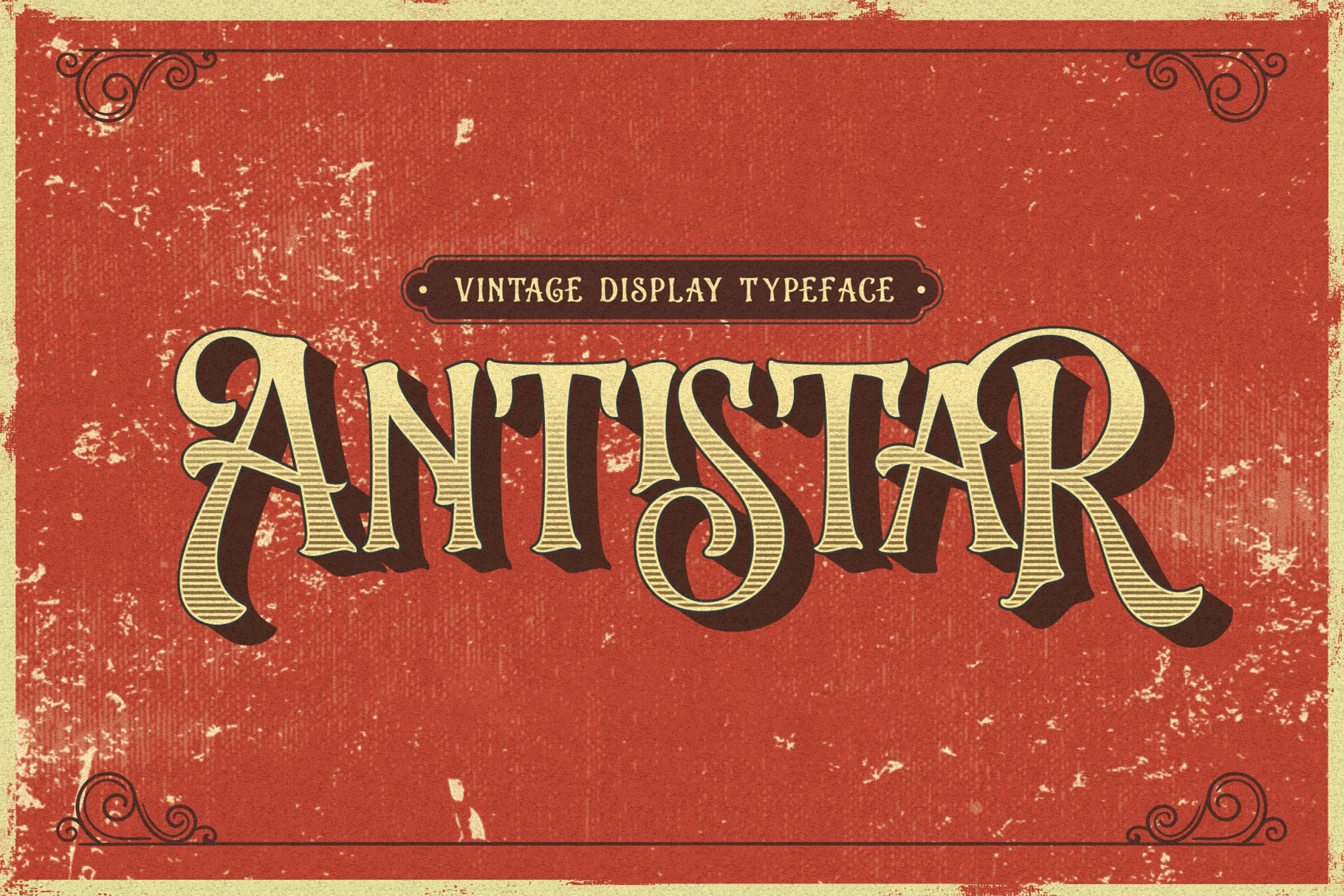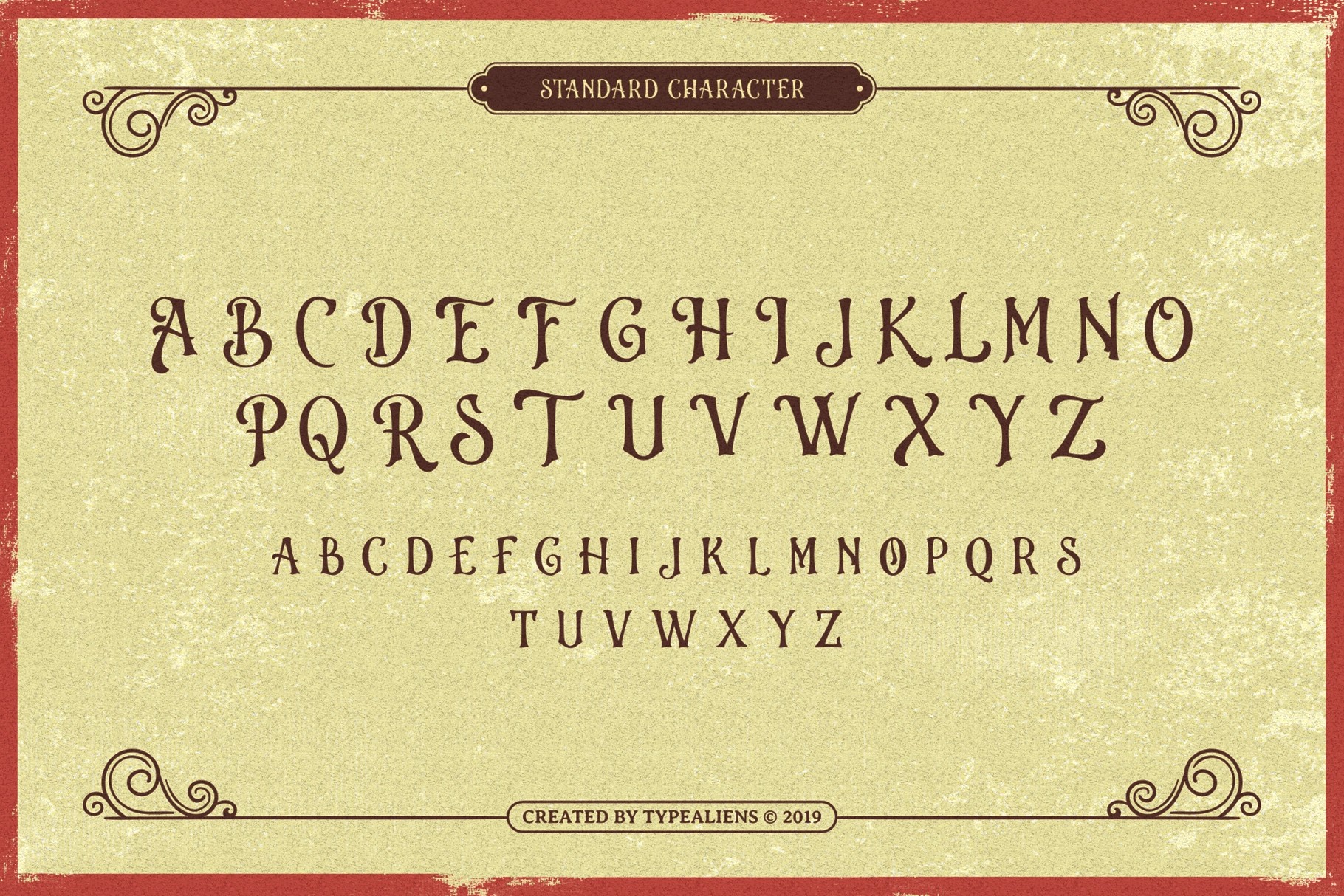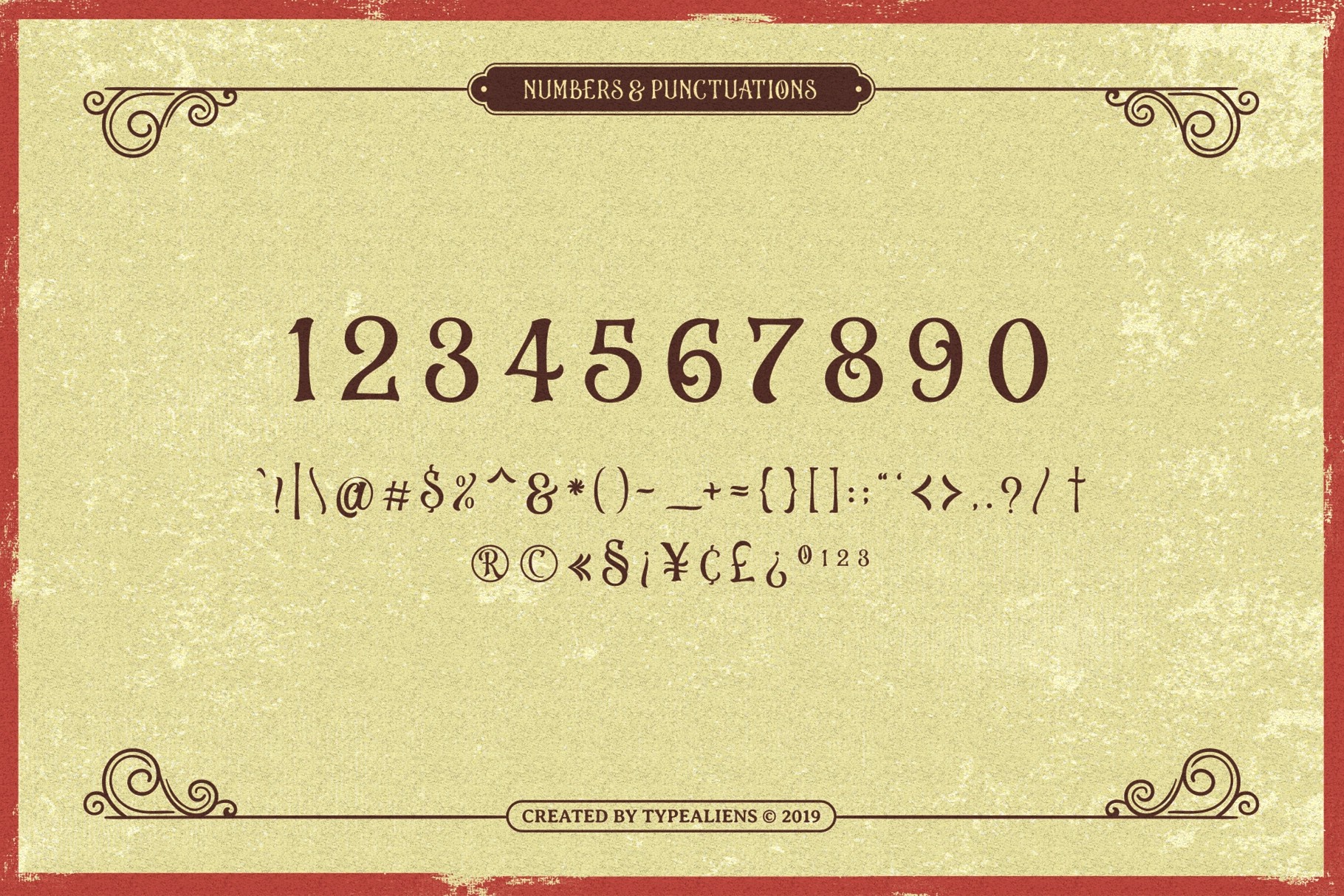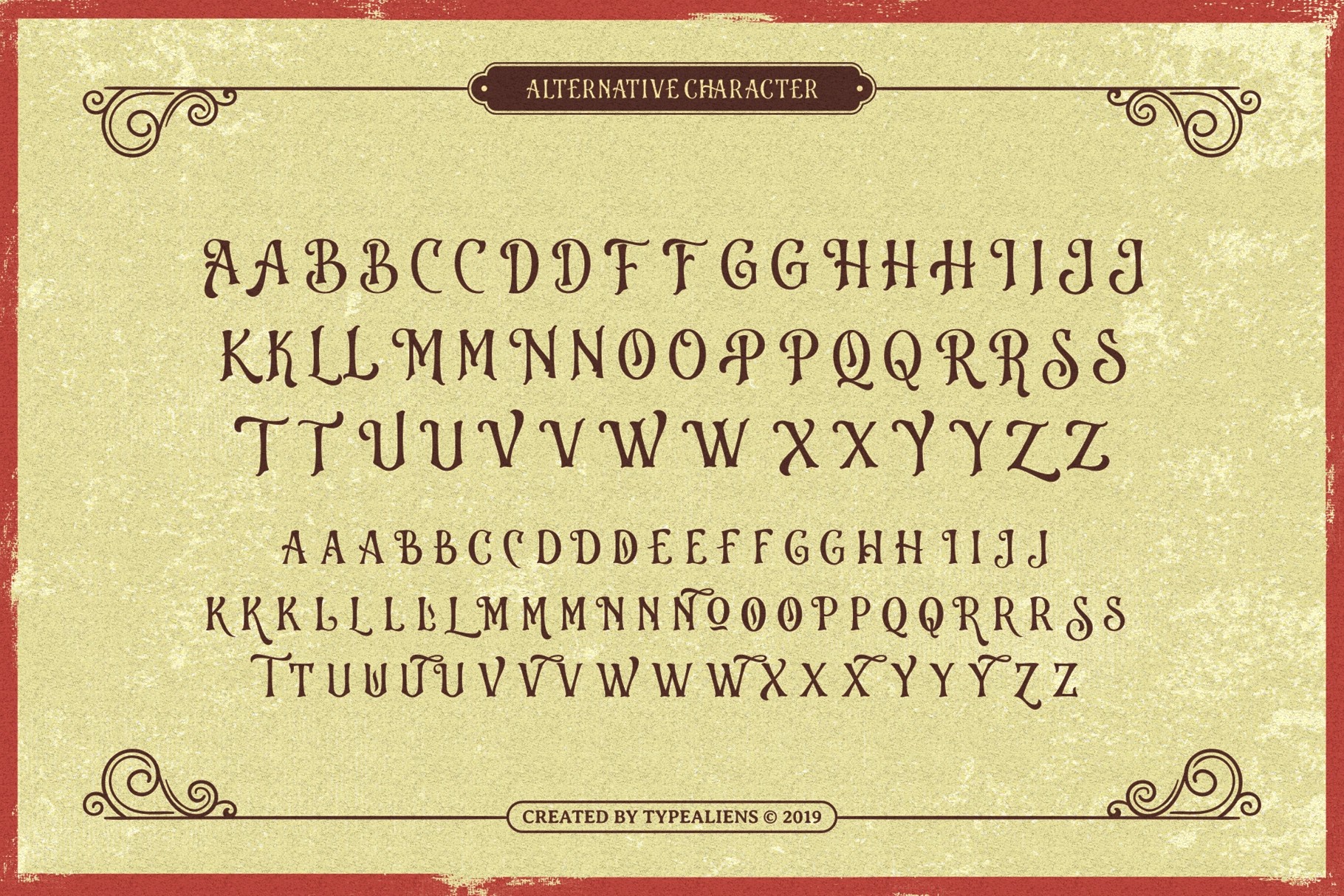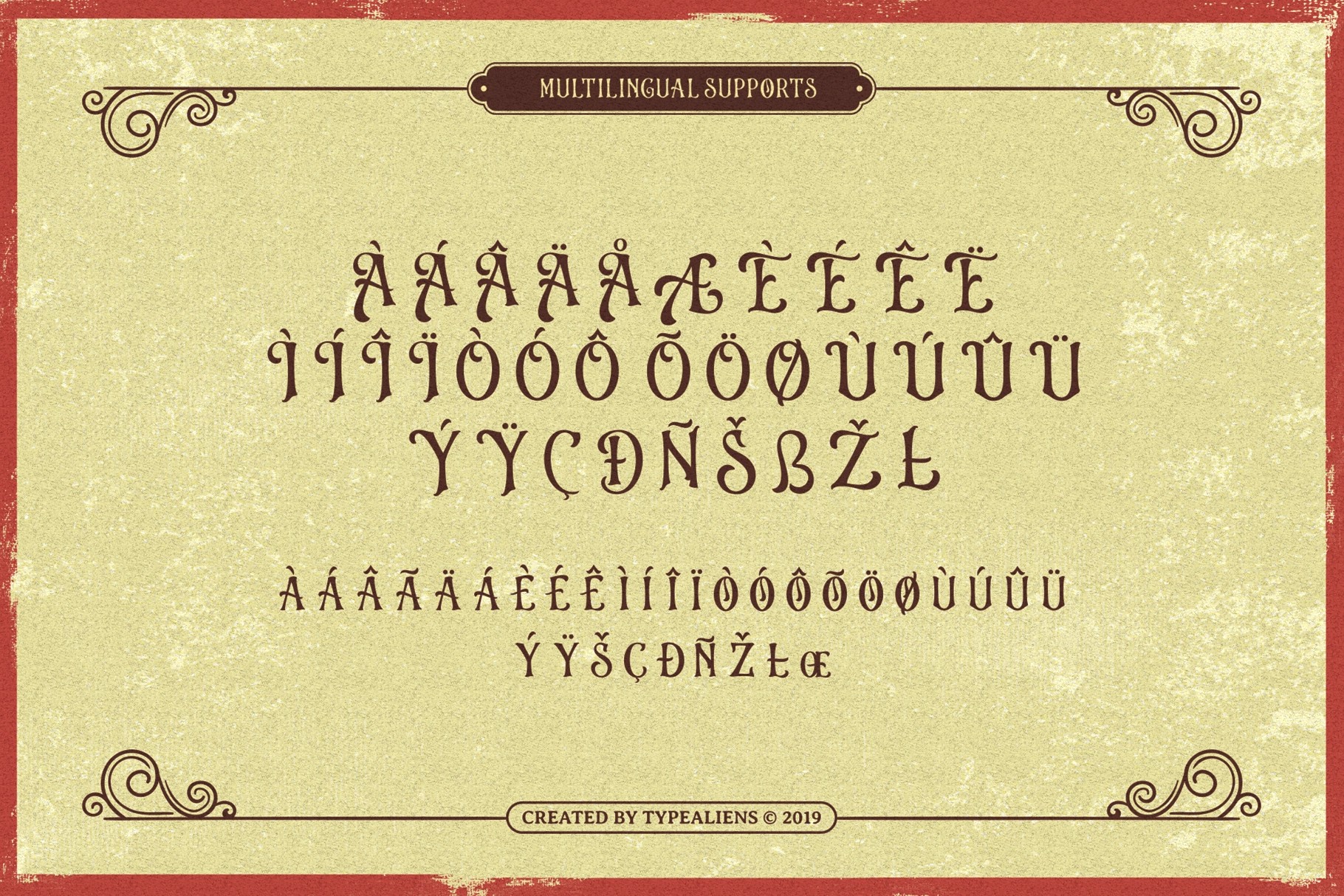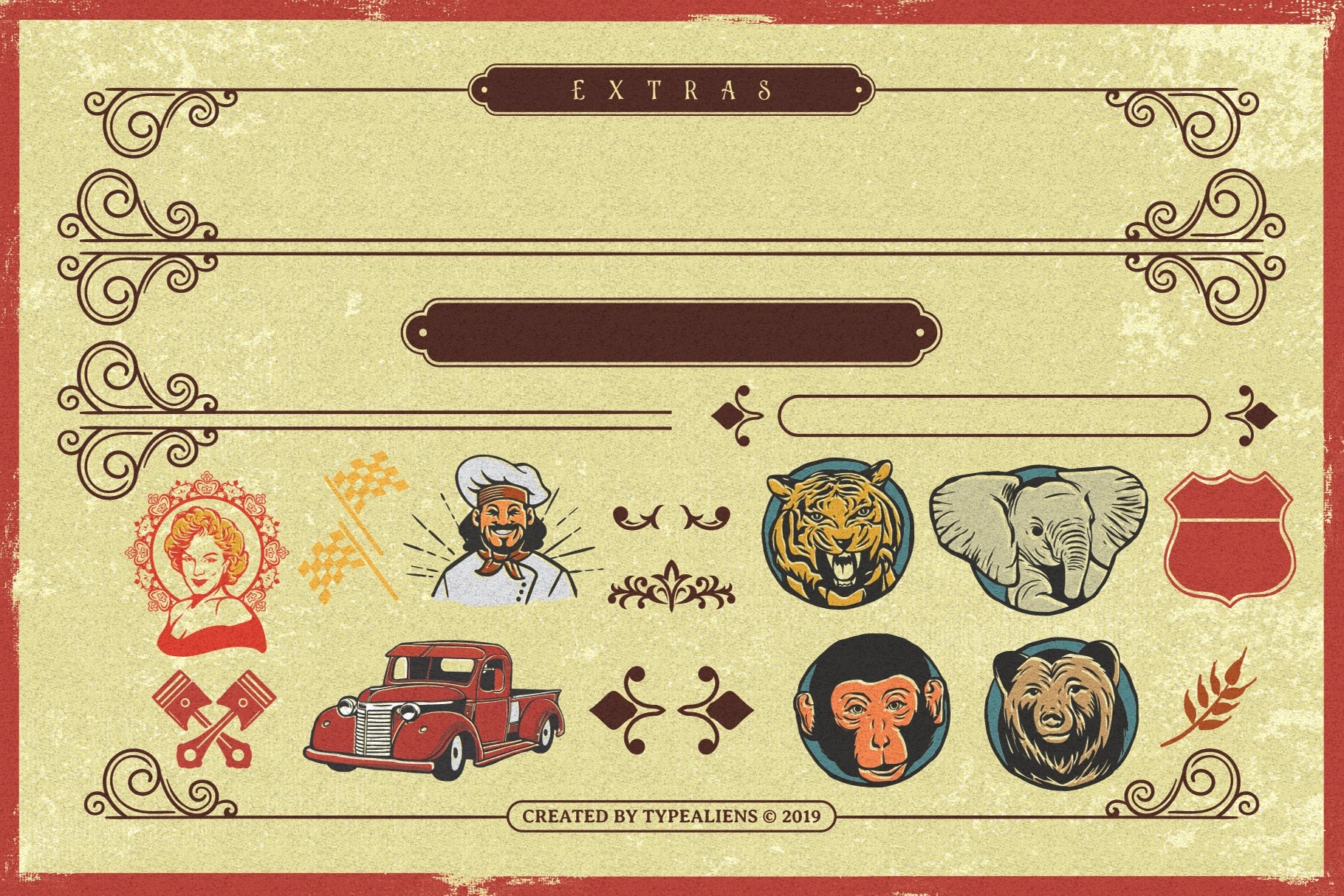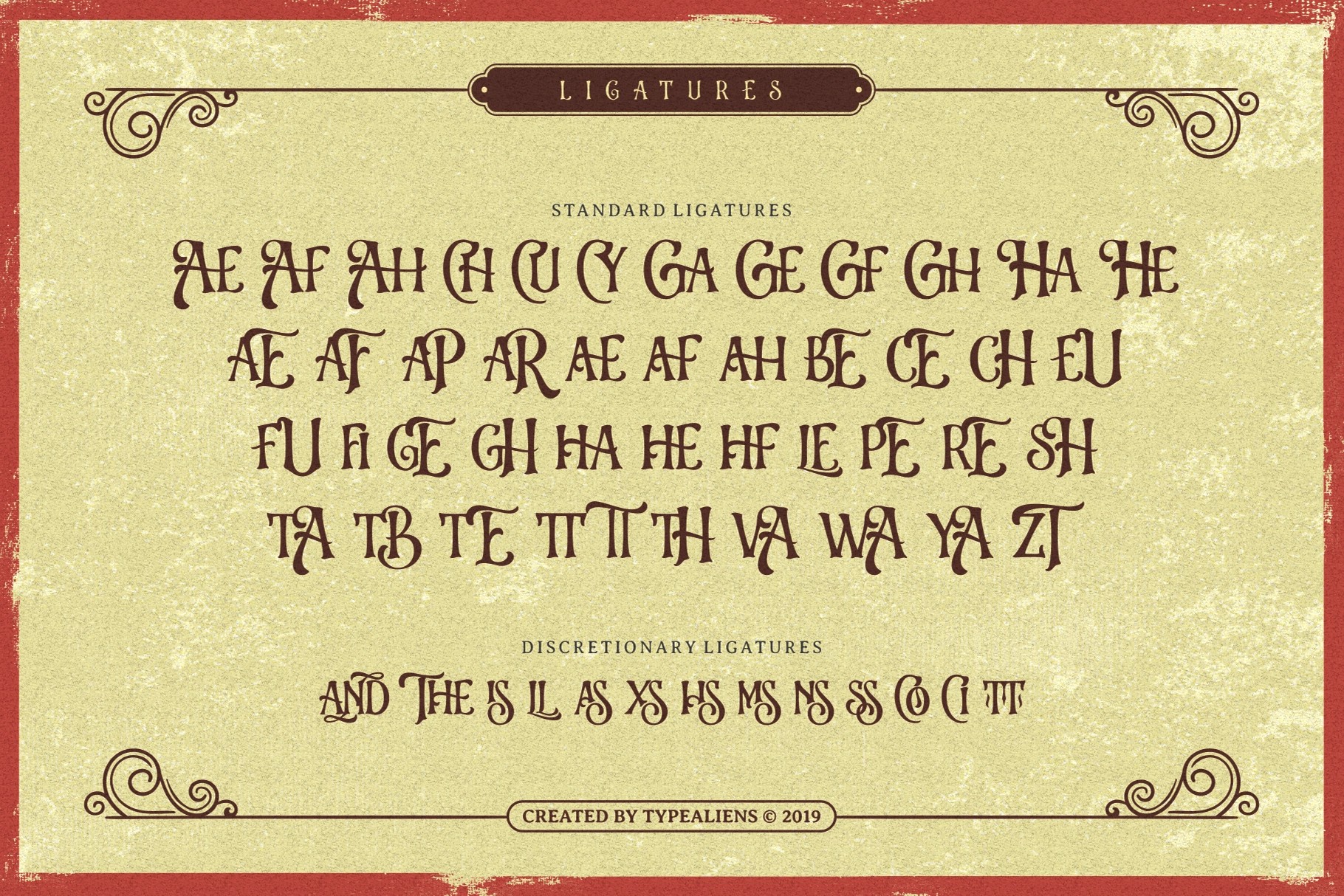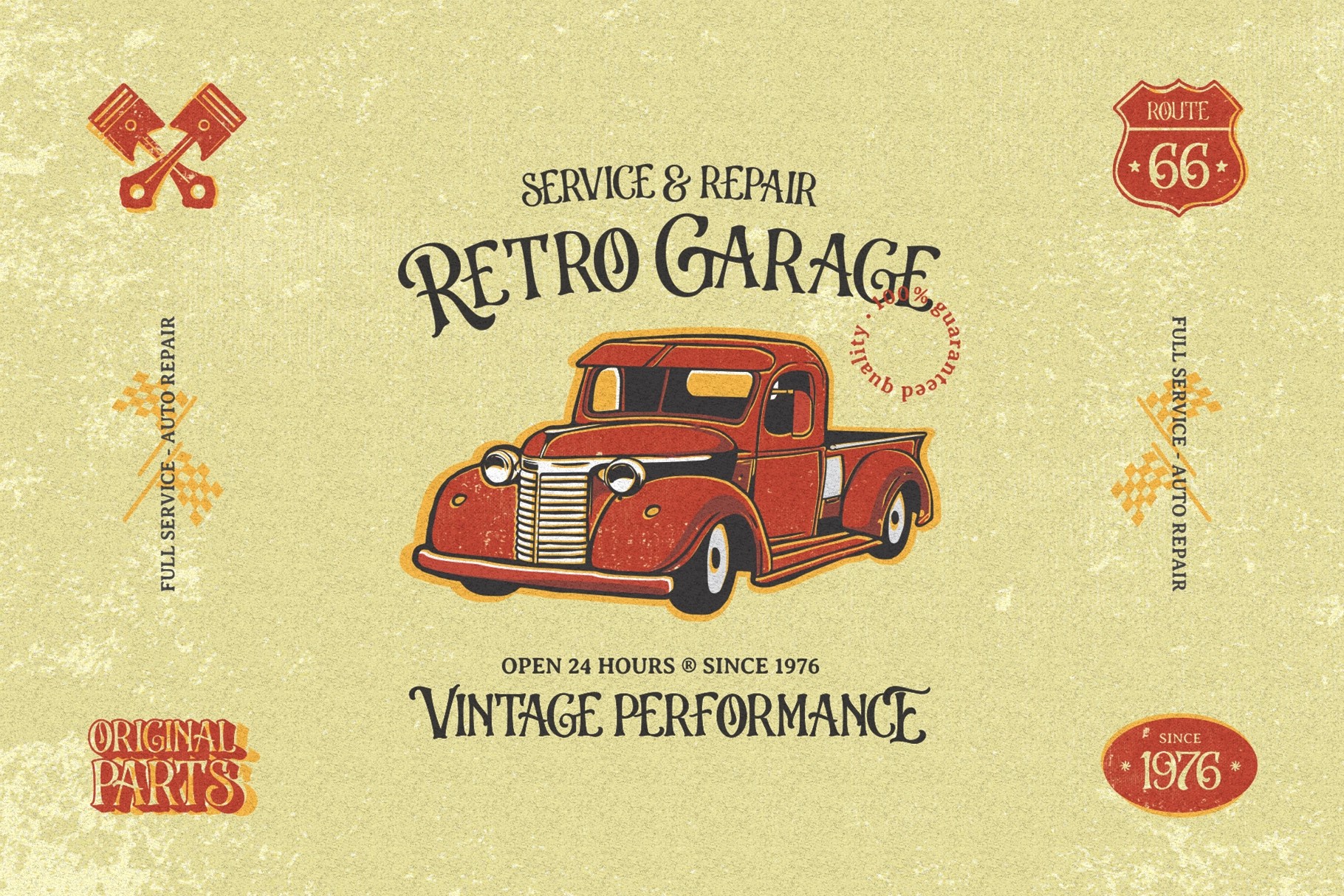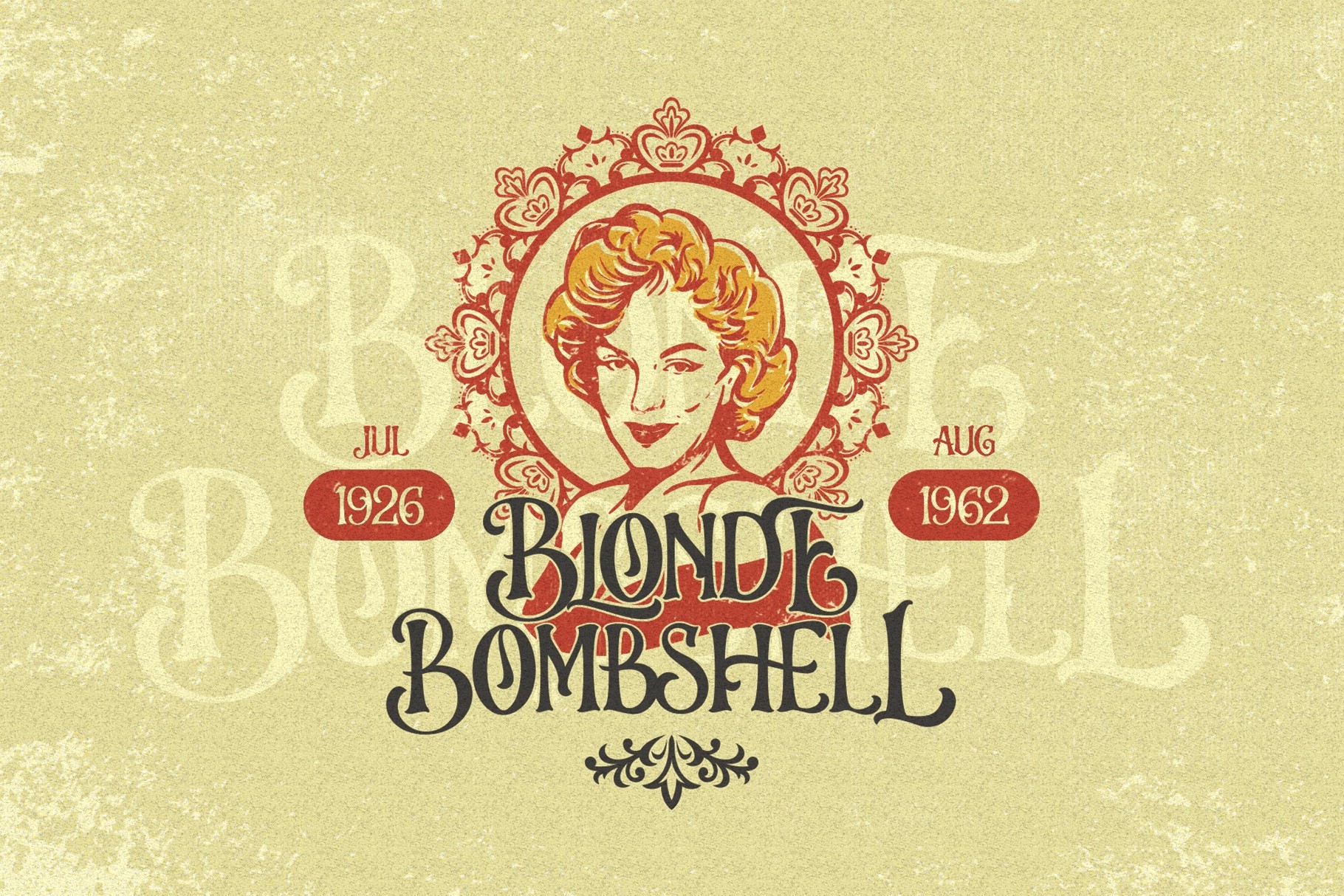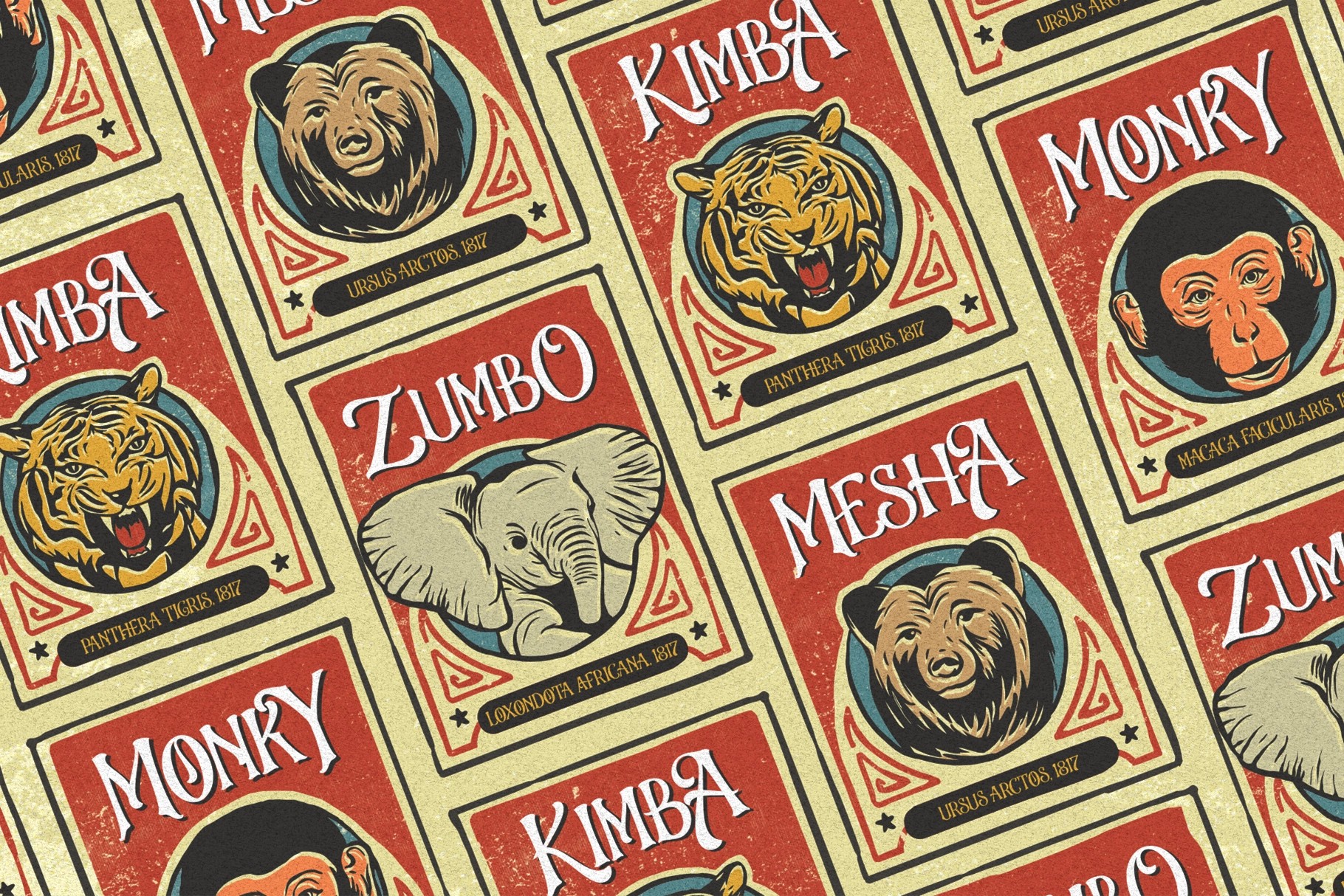
Antistar - Vintage Display Font
This vintage display font has a bold carnival-poster character, with flared serifs, curled terminals, shaded letterforms, and a worn print texture. Its letter shapes are decorative but readable, giving logos and headlines a classic storefront attitude with a slightly mischievous grin.
Antistar is made for branding that wants old-school charm without getting too precious about it. Use it for logos, posters, liquor labels, streetwear graphics, motorcycle branding, bar signage, food packaging, event flyers, album covers, badges, menu headers, editorial titles, and merch graphics.
• Standard ligatures
• Discretionary ligatures
• Alternative characters
• Extra ornaments and illustrations included